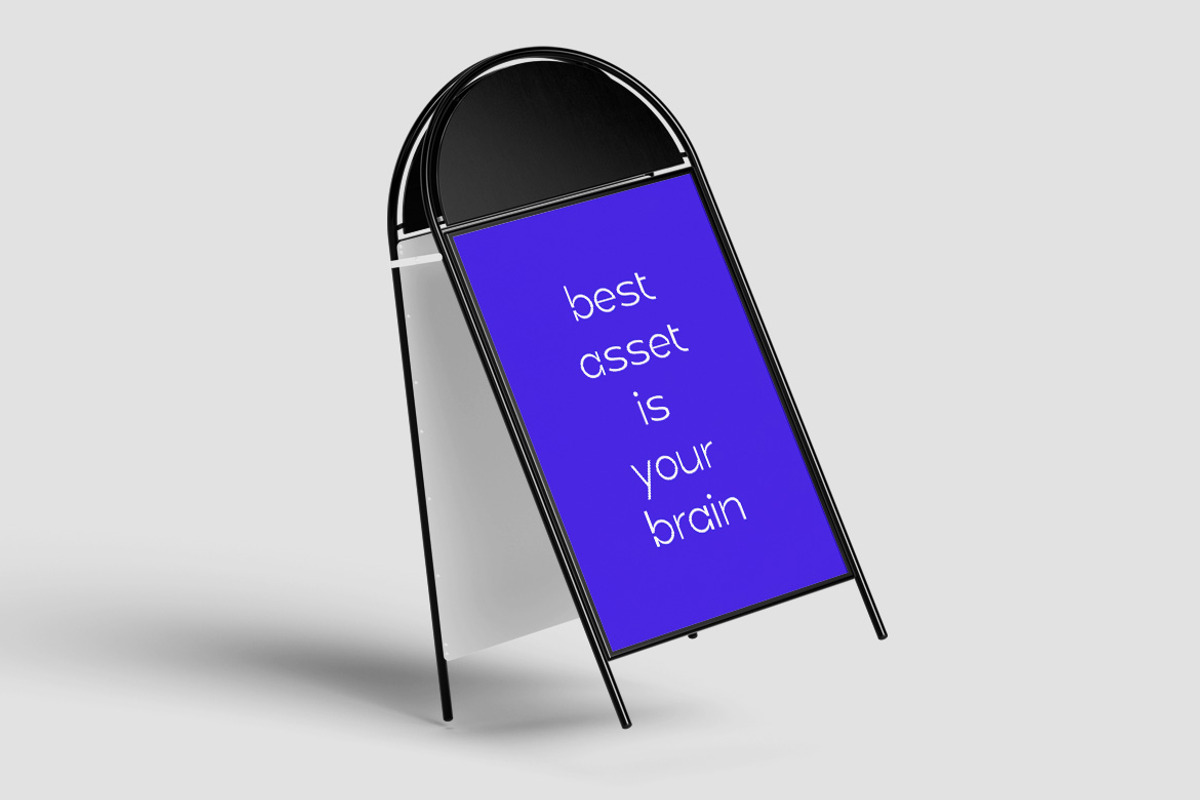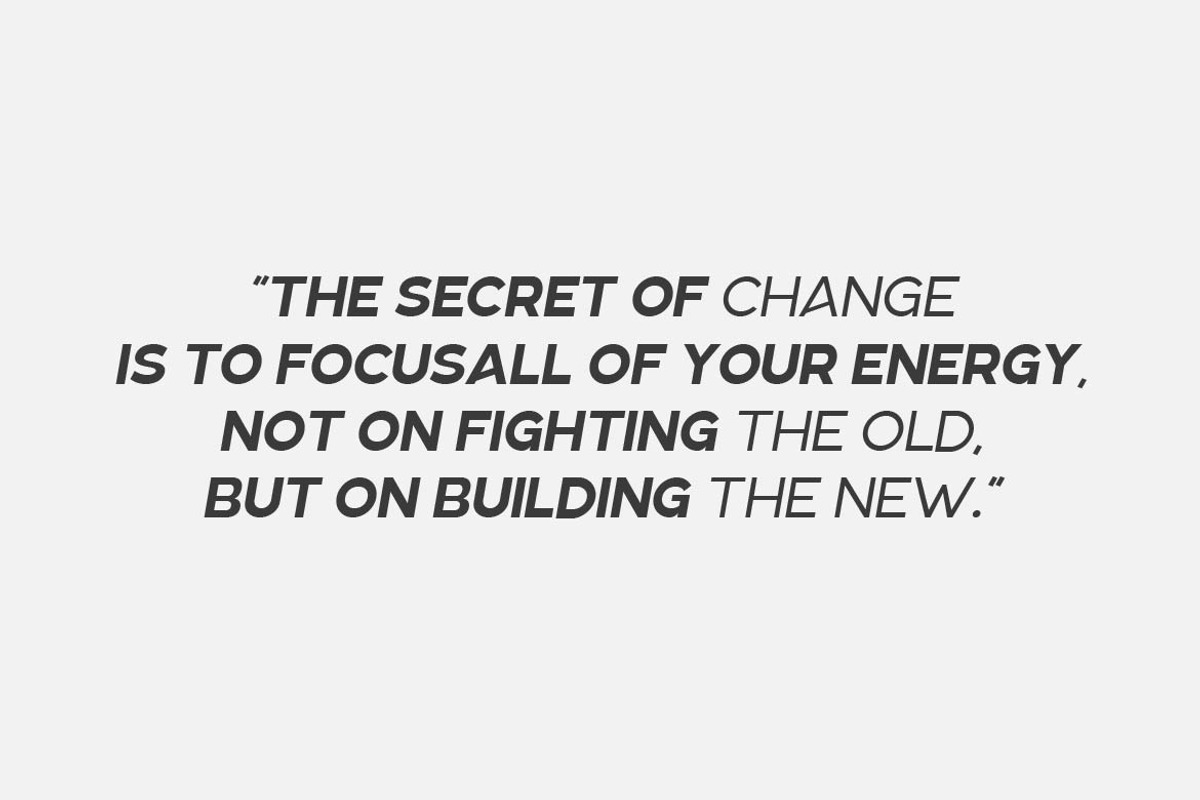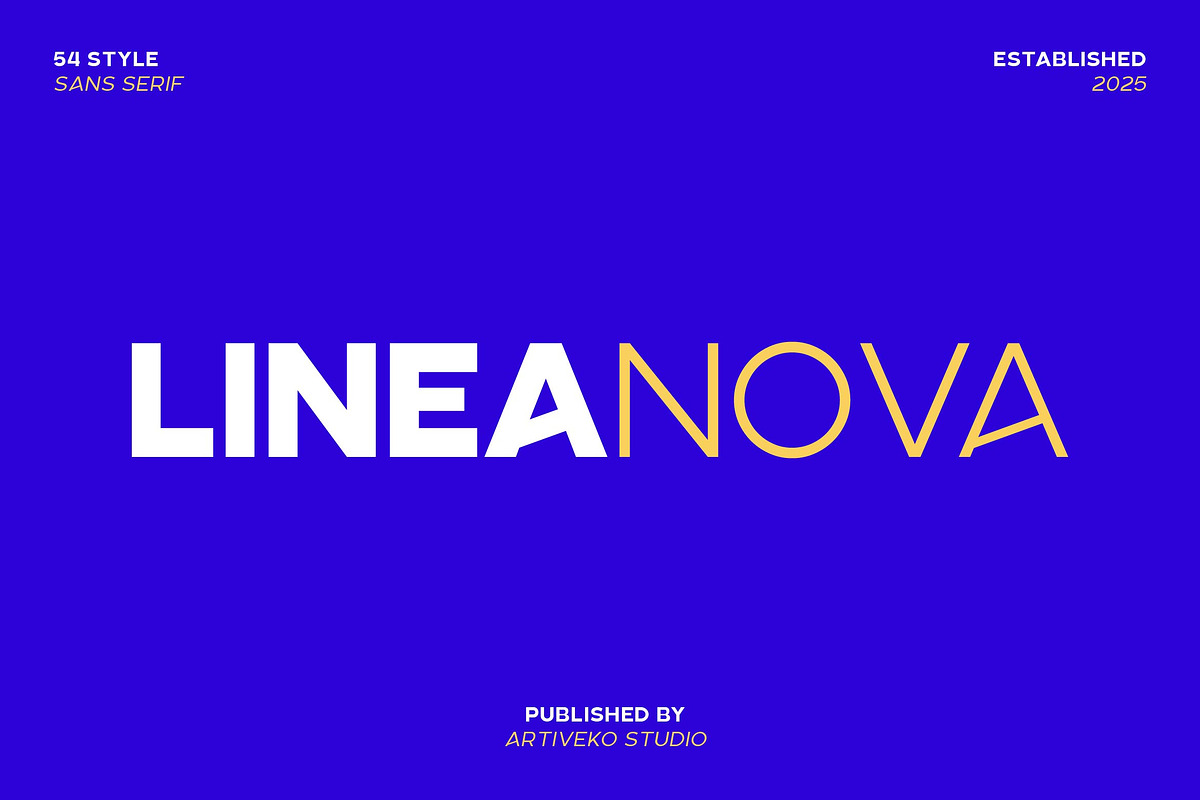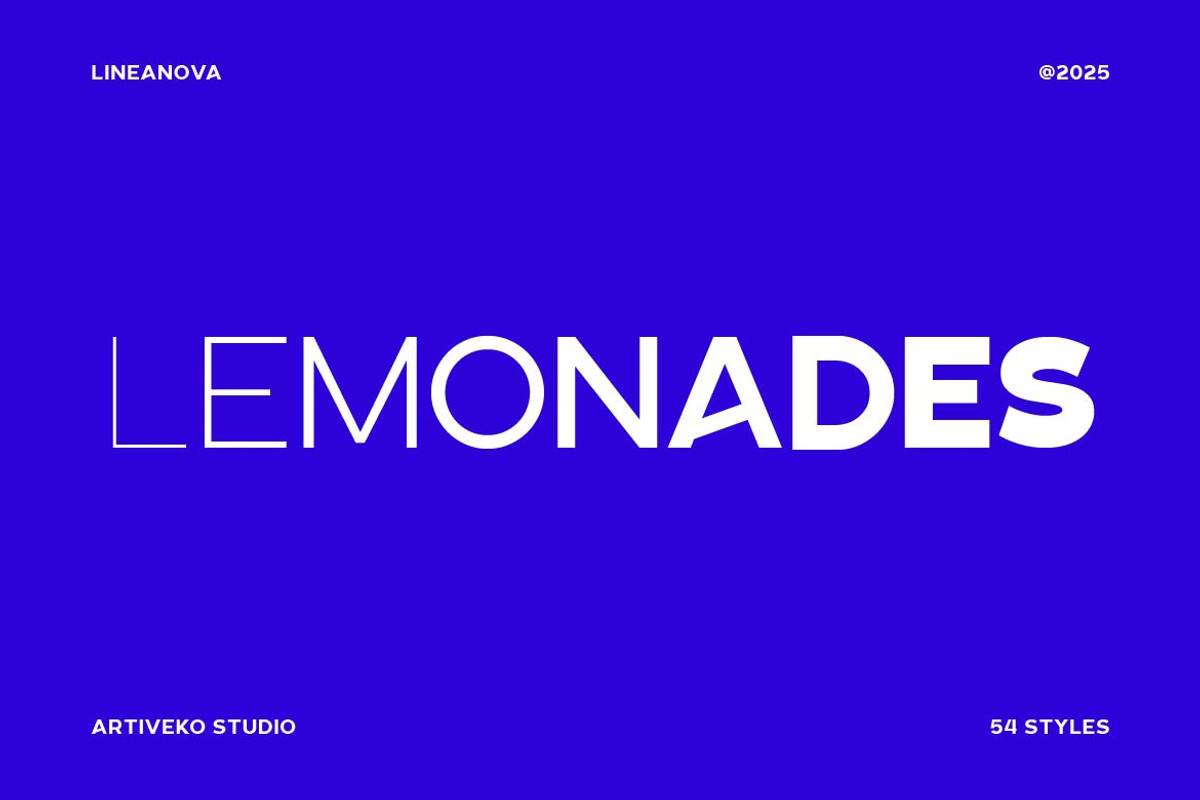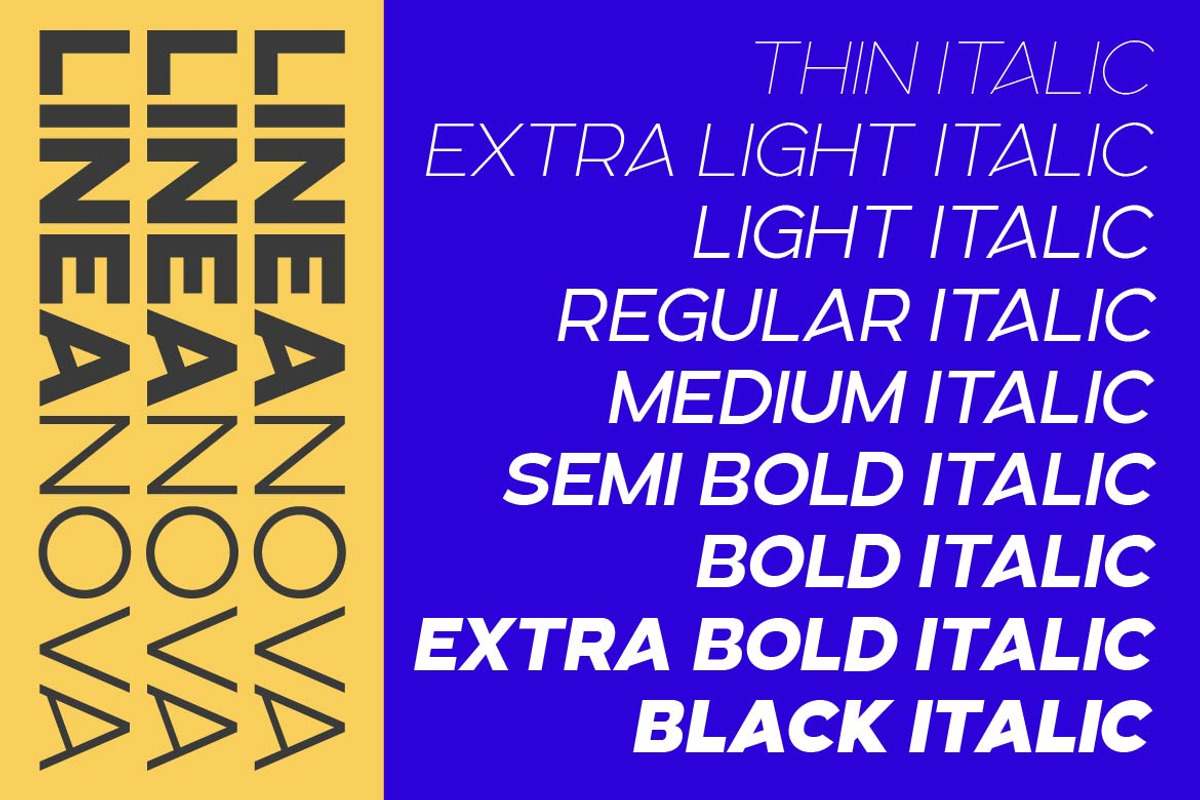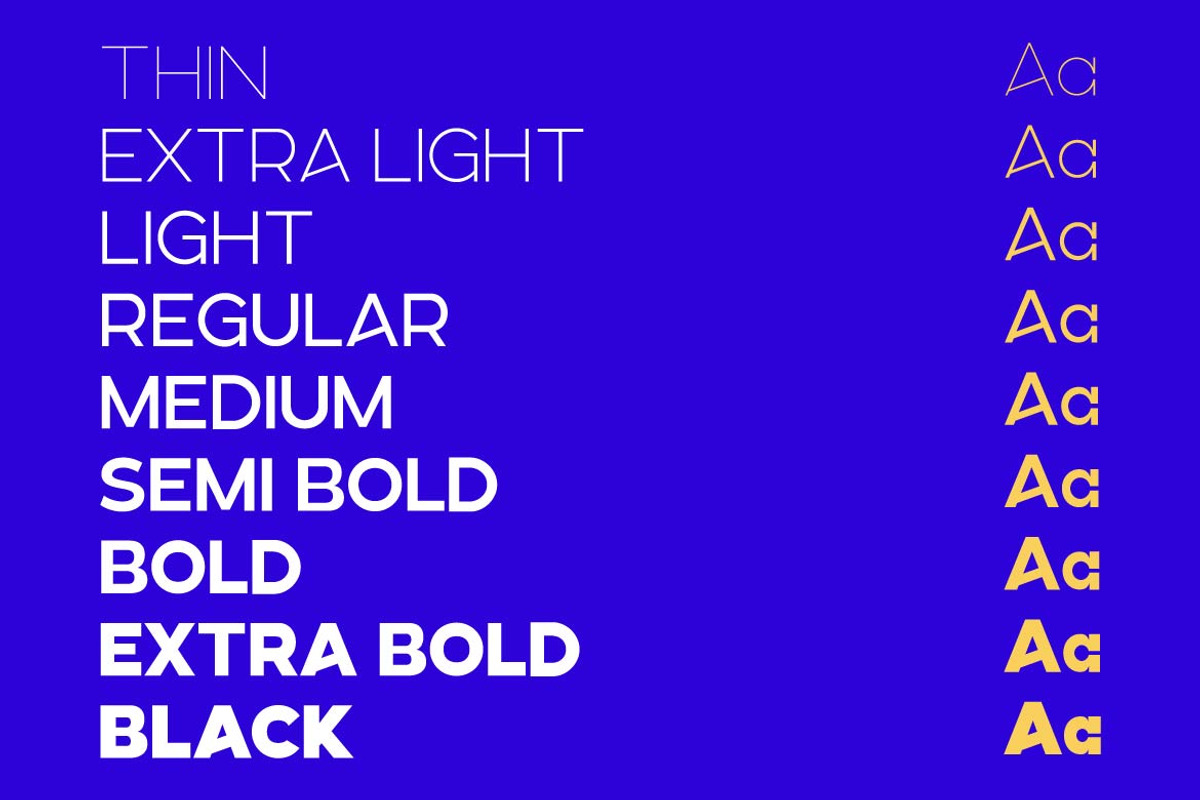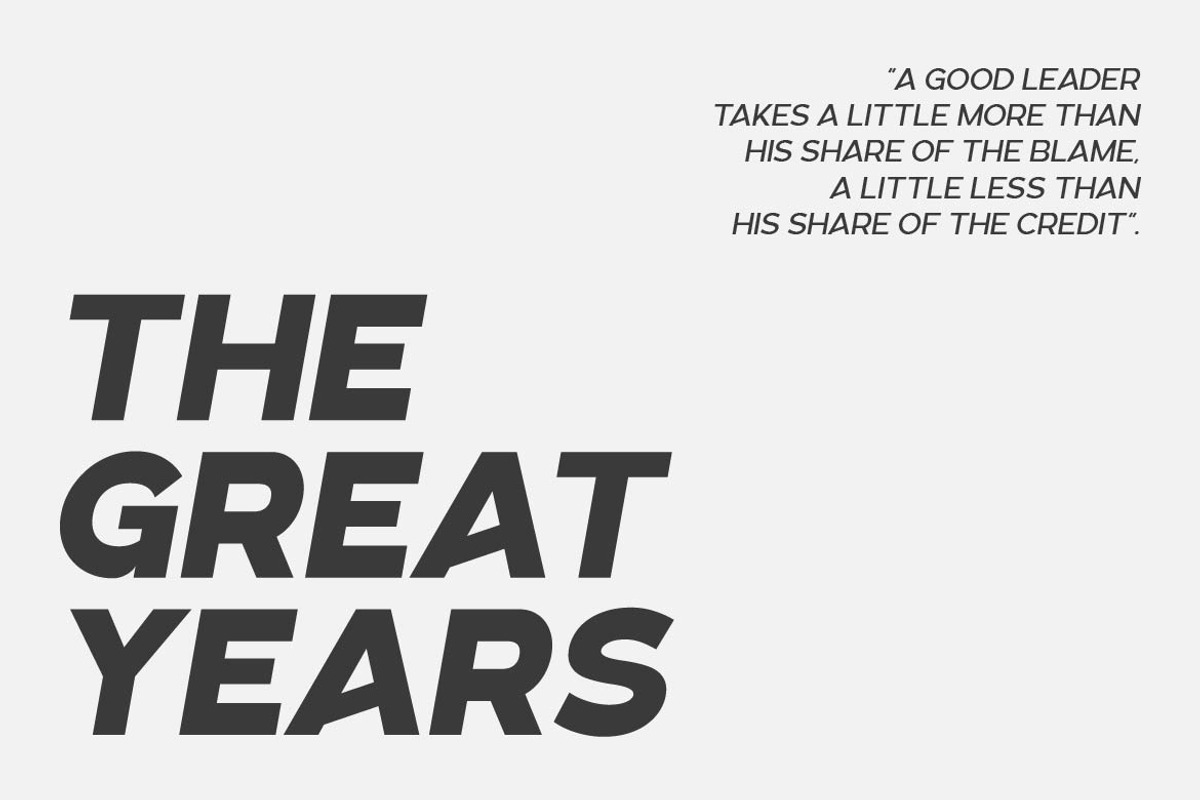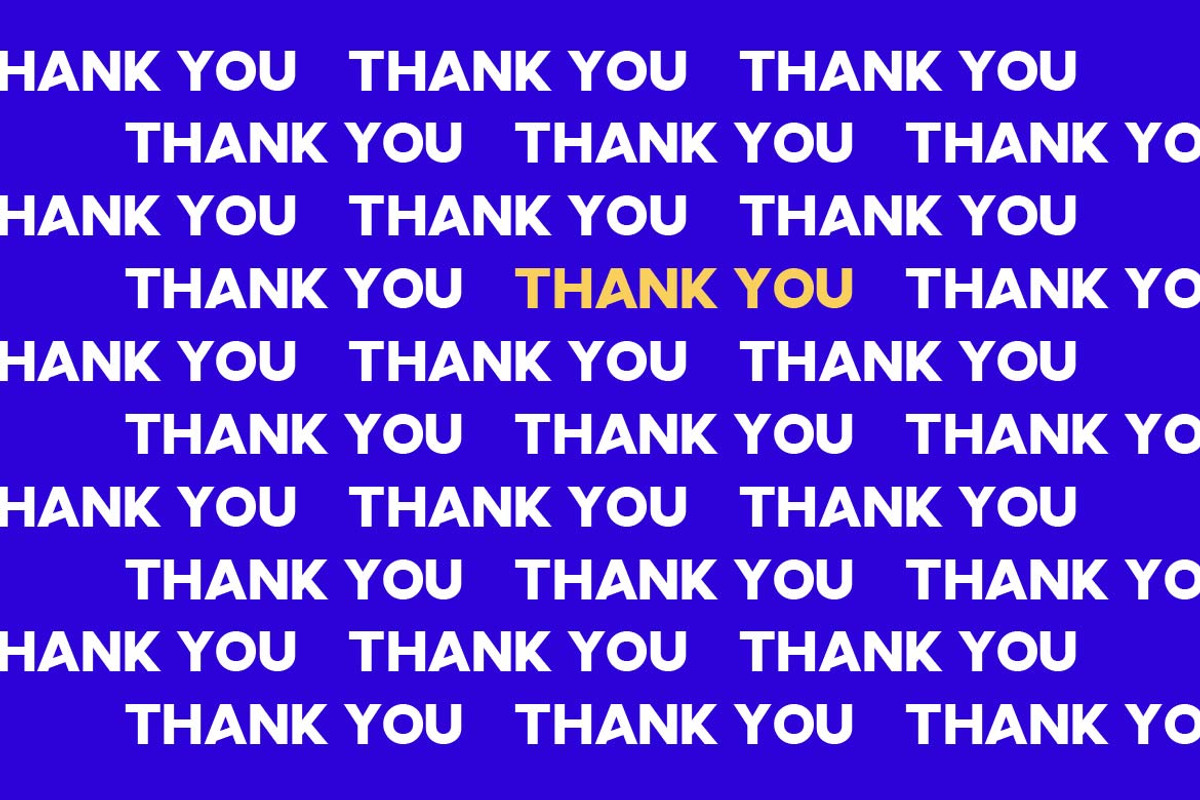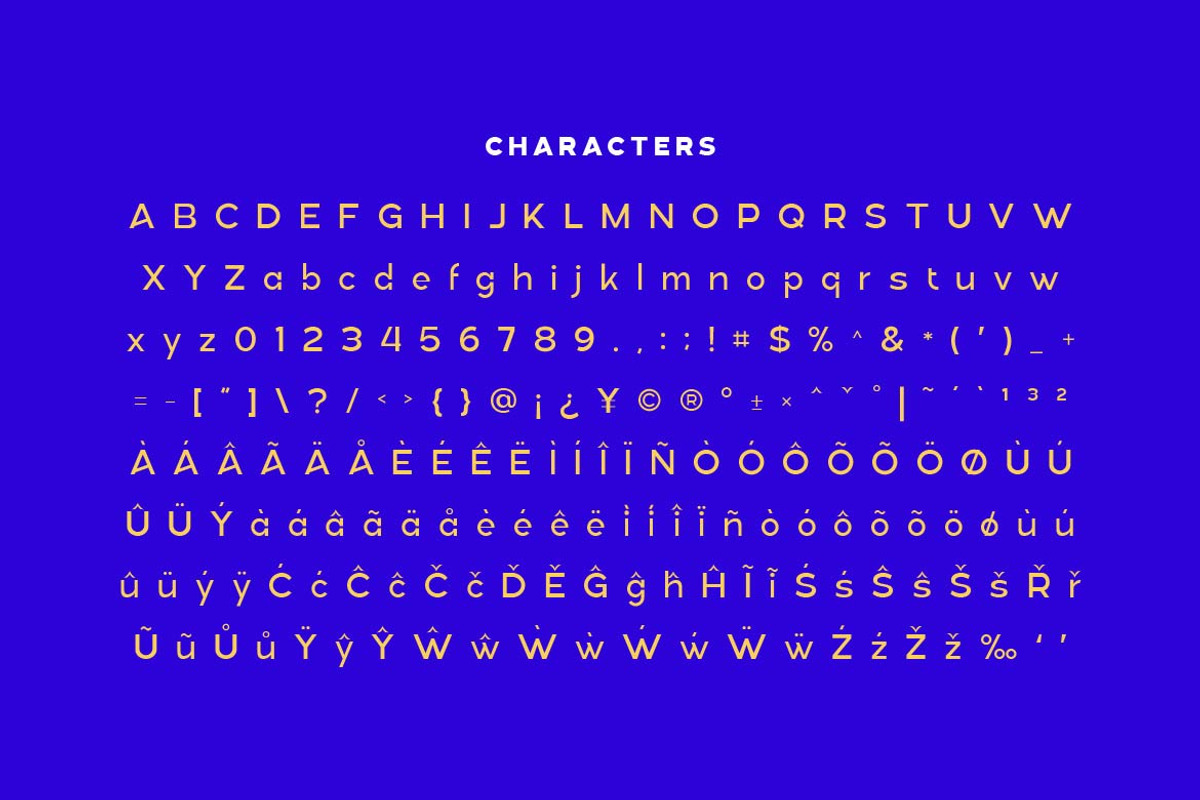
Linea Nova Sans Serif Family
LineaNova is a sleek and contemporary sans serif font family designed for flexibility and elegance. With its clean lines, geometric shapes, and perfectly balanced proportions, LineaNova delivers exceptional readability and modern sophistication for all types of design projects.